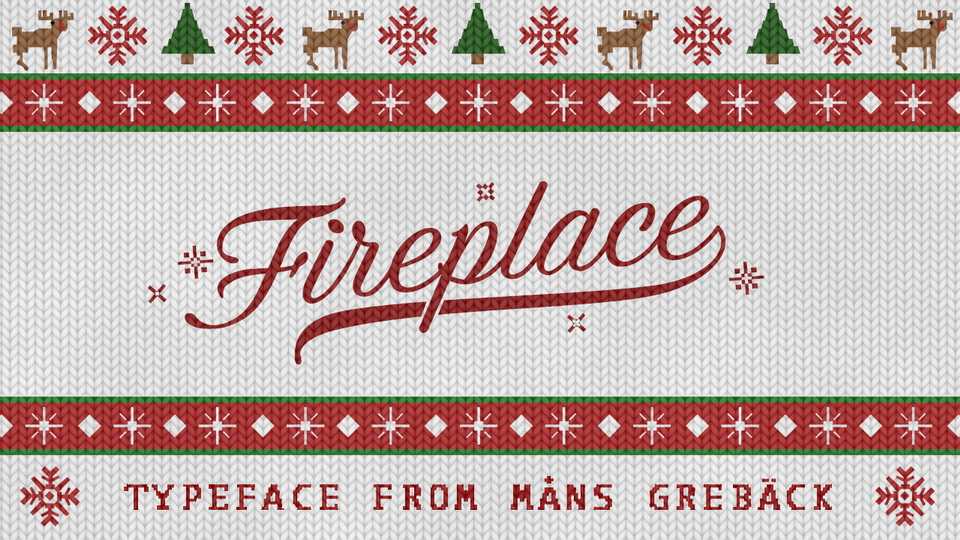
Download Fireplace font, a decorative logotype typeface. Fireplace script has a cozy and warm holiday vibe, bringing the thoughts to a Christmas Eve and winter season.
Designer: Måns Grebäck